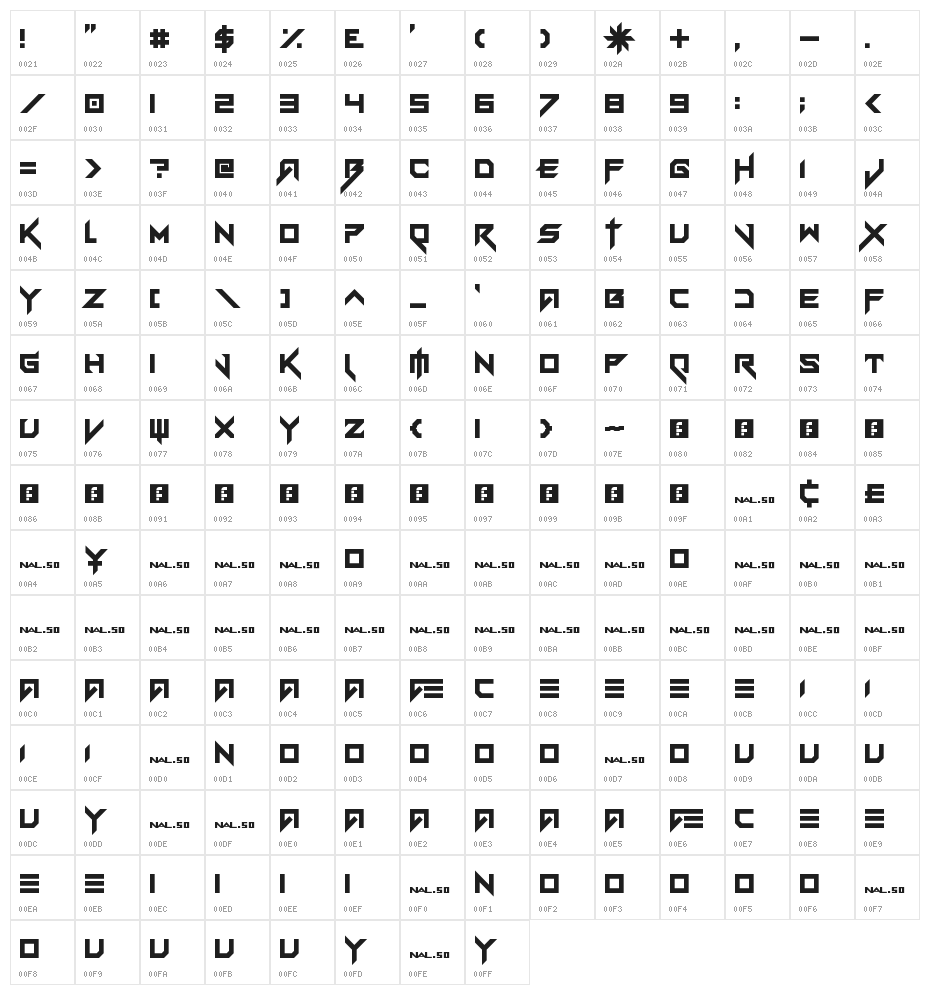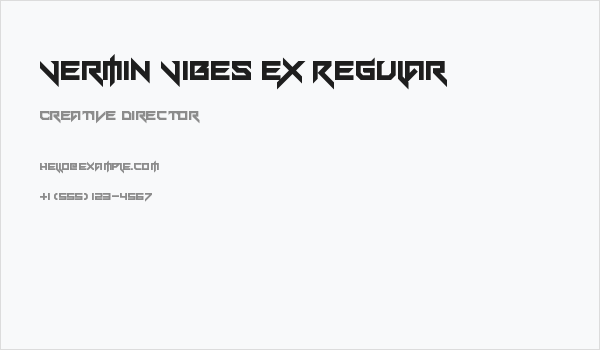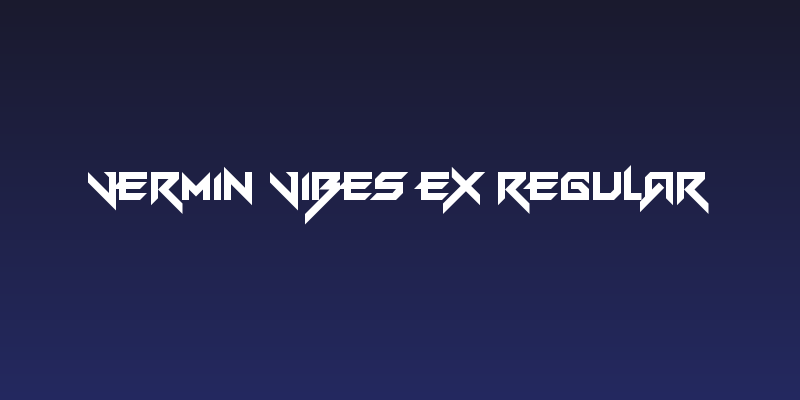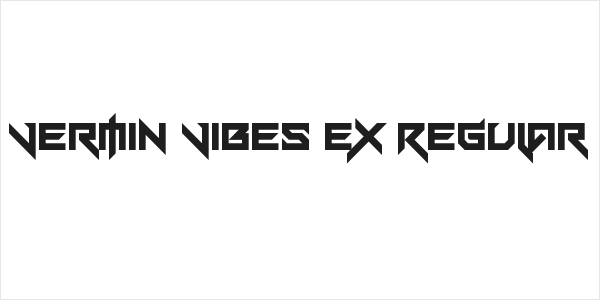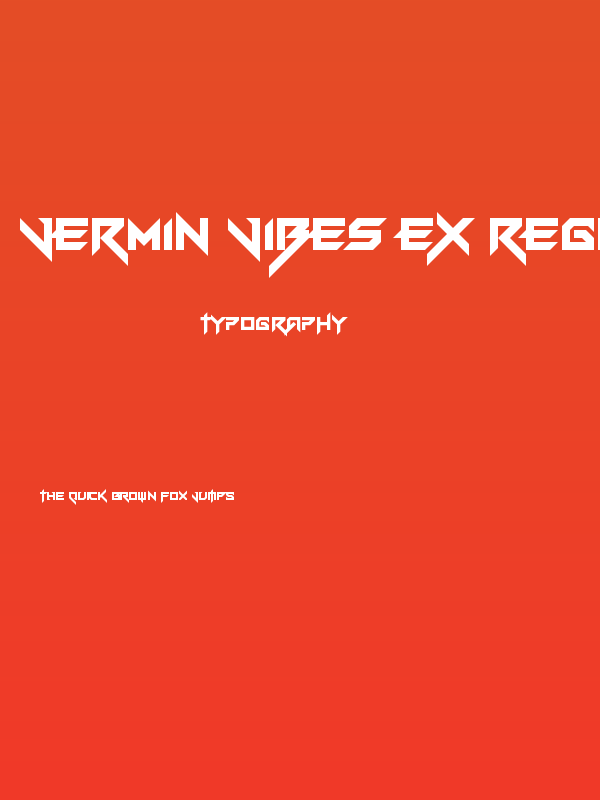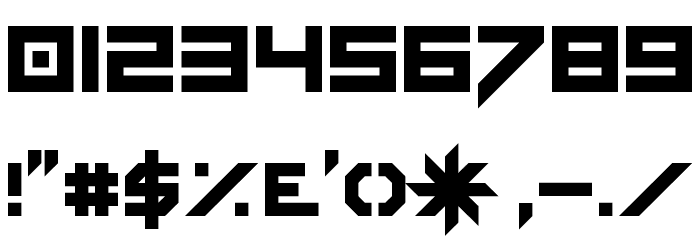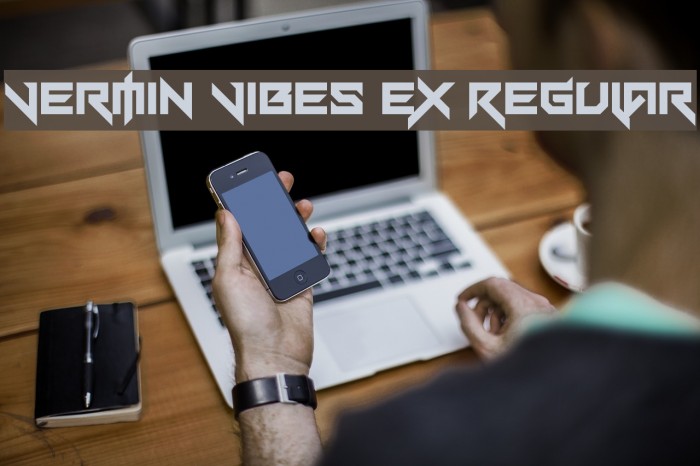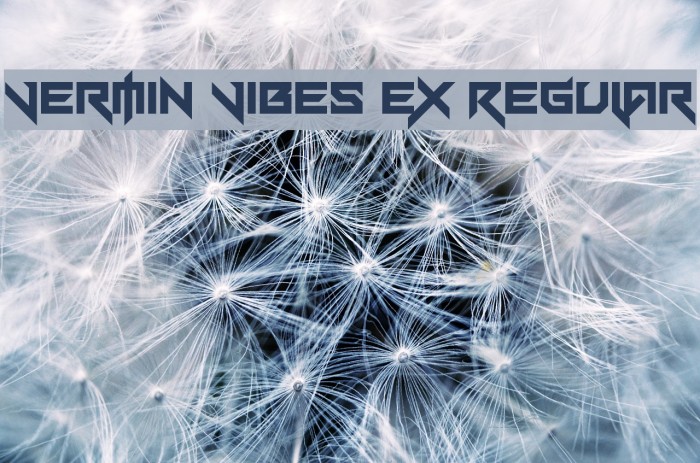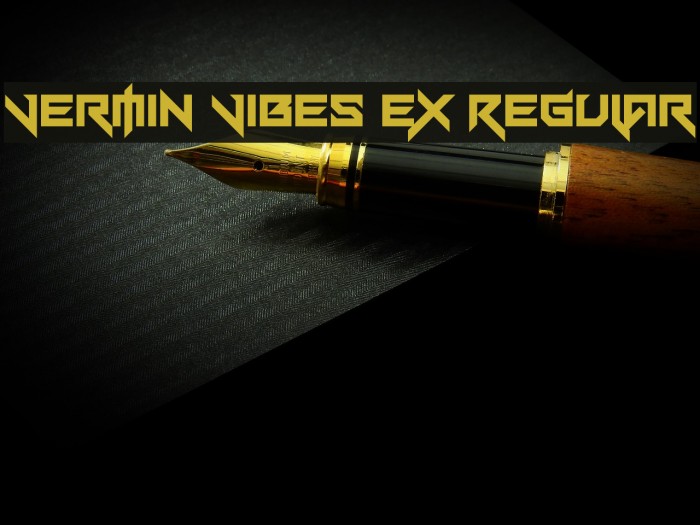
Vermin Vibes eX Regular Font
Vermin Vibes eX Regular Description
This font features a bold, angular design with sharp, geometric edges that give it a futuristic and edgy appearance. The characters are constructed with a consistent thickness, creating a uniform and cohesive look across all letters and numbers. The uppercase and lowercase letters maintain a similar style, with distinct, pointed elements that enhance its modern aesthetic. The numerals and special characters follow the same design principles, ensuring a seamless integration within any text. This font's unique style makes it stand out, perfect for projects that require a strong visual impact.
| Proposed Projects | Ideal for video game titles, sci-fi movie posters, tech branding, and edgy graphic design projects. |